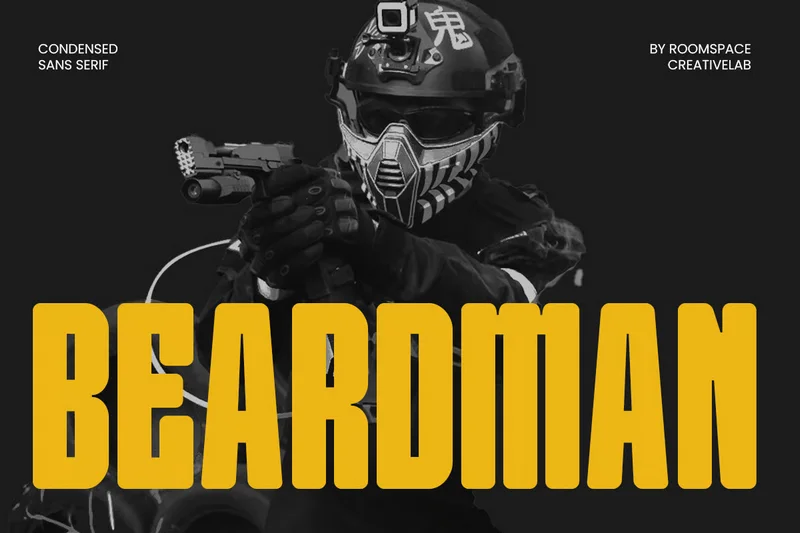
Beardman – Bold Condensed Sans Serif Font
Beardman is a bold condensed sans serif font with a modern, masculine, and powerful vibe. Its clean shapes, sharp edges, balanced proportions, and versatile kerning make every word stand out with strength while staying highly readable. Perfect for designers who need a strong visual presence, Beardman works beautifully for logos, branding, posters, editorial layouts, packaging, and social media graphics delivering a bold font choice that combines function and style to elevate your next creative project.